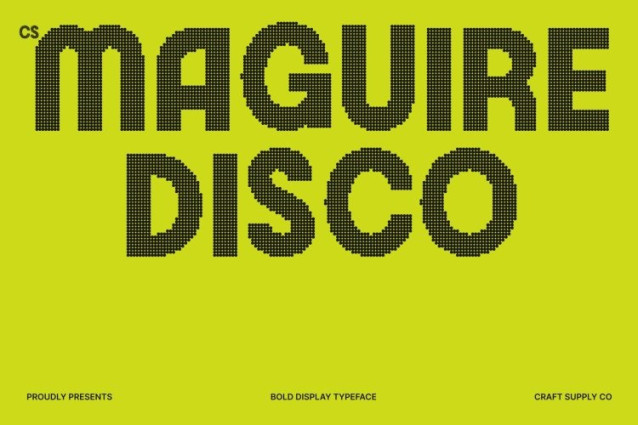
CS Maguire Disco Font
CS Maguire Disco Font This is a bold retro sans serif font that fuses clean, confident letterforms with the energetic spirit of 90s disco culture. Inspired by club posters, dance-floor graphics, and iconic pop visuals of the decade, this font delivers a striking presence that feels loud, fun, and unapologetically bold.
Strong Shapes with Rhythmic Simplicity
Built with solid strokes, sharp edges, and decoration-free forms, this font keeps things simple while amplifying impact. Its sturdy construction and balanced proportions create a powerful rhythm across every letter, echoing the pulse of music, flashing lights, and packed dance floors.
90s Nostalgia with High-Energy Expression
This font captures the essence of retro nightlife neon signs, vinyl records, and late-night club vibes while maintaining a modern clarity. The result is a typeface that feels nostalgic yet fresh, perfect for designs that want to celebrate retro culture with a contemporary edge.
Perfect for Party Branding, Posters, and Statement Visuals
This font is ideal for event posters, music branding, festival visuals, nightlife promotions, logos, and bold packaging. Its strong display character ensures maximum visibility and attitude, making it perfect for designs that demand attention, energy, and a true party vibe.